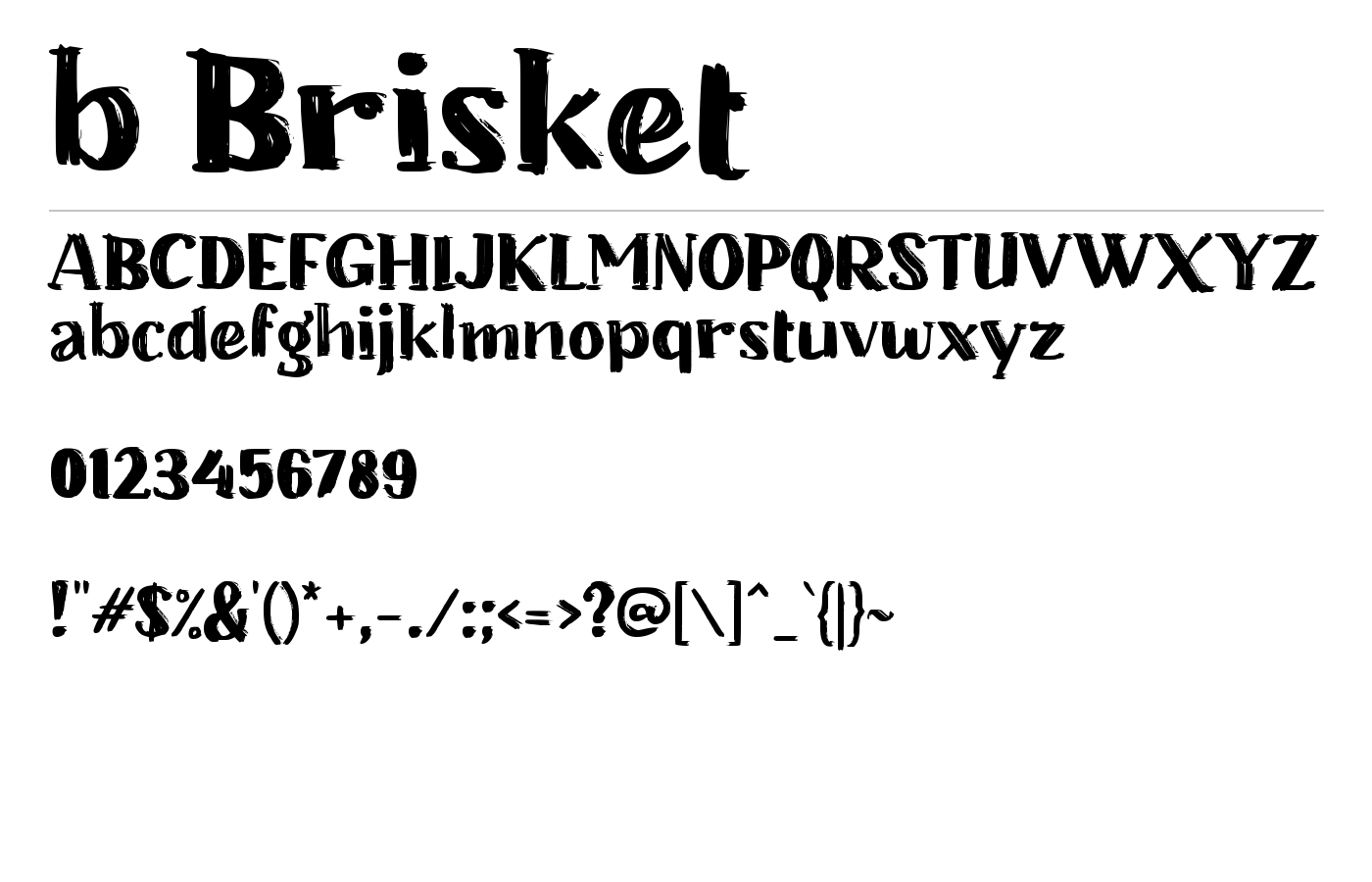
Brisket is a bold, hand-drawn serif font with a rough, textured look that adds an organic, artisan feel to any design. Its irregular, playful shapes make it ideal for creative projects seeking a casual, handcrafted vibe, perfect for branding, posters, and packaging that want to stand out with personality. This font balances readability with artistic flair, bringing warmth and character to headlines and display use.
b Brisket Font